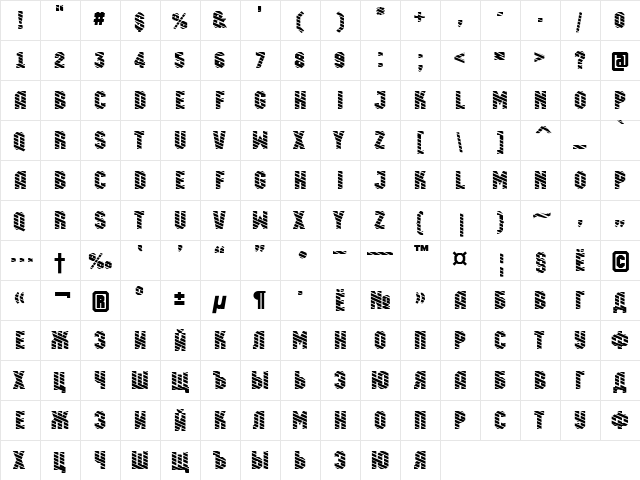
a_MachinaOrtoDgStr Bold
Design Context for a_MachinaOrtoDgStr Typeface
a_MachinaOrtoDgStr is a composed and adaptable typeface that performs quietly and consistently across a wide range of design contexts. Its bold stroke weight gives it real presence on the page.
Pro Tip: Pair a_MachinaOrtoDgStr with a font of contrasting weight or personality to build a more expressive typographic hierarchy.